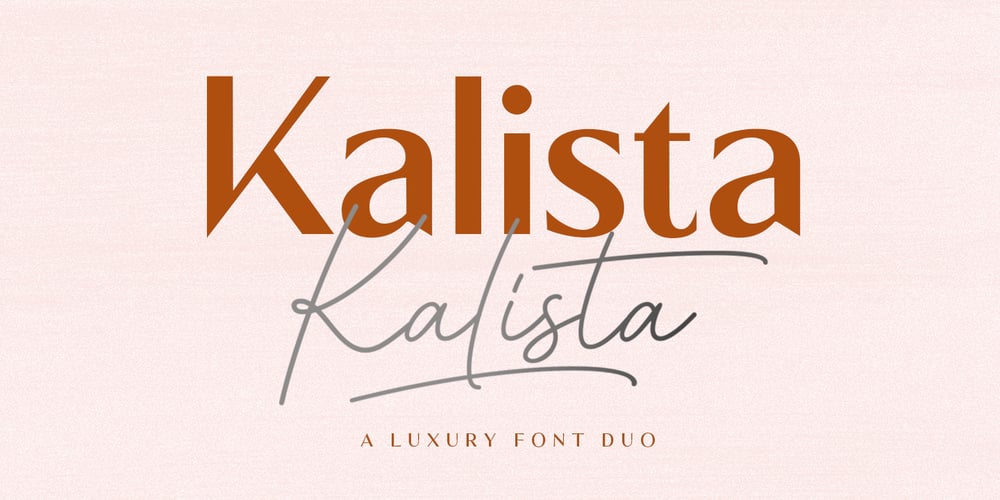
Kalista
Kalista font
Kalista Font Family was designed by Mulkan Nazir and published by Great Studio. Kalista contains 5 styles and family package options. Kalista Font Duo is a luxury font. which comes with a combination of modern and elegant fonts, namely serif and signature style. You can combine them to create beautiful typography. This handcrafted style makes it perfect for use in all your design projects be it logos, labels, packaging designs, blog titles, posters, wedding designs, social media posts, Instagram designs, invitation cards, art quotes, home decor, book / title covers, etc.This is what includes:Kalista Script Regular / Bold• Thin and realistic signature font containing 40+ ligatures and alternates, lowercase, uppercase, all punctuation & numbers.Kalista Serif Light / Regular / BoldLanguage Support• Kalista supports the following languages; English, French, Italian, Spanish, Portuguese, German, Swedish, Norwegian, Danish, Dutch, Finnish, Indonesian, Malay, Hungarian, Polish, Croatian, Turkish, Romanian, Czech, Latvian, Lithuanian, Slovak, Slovenian.I hope you enjoy this font. If you have questions, don’t hesitate to give me a message 🙂